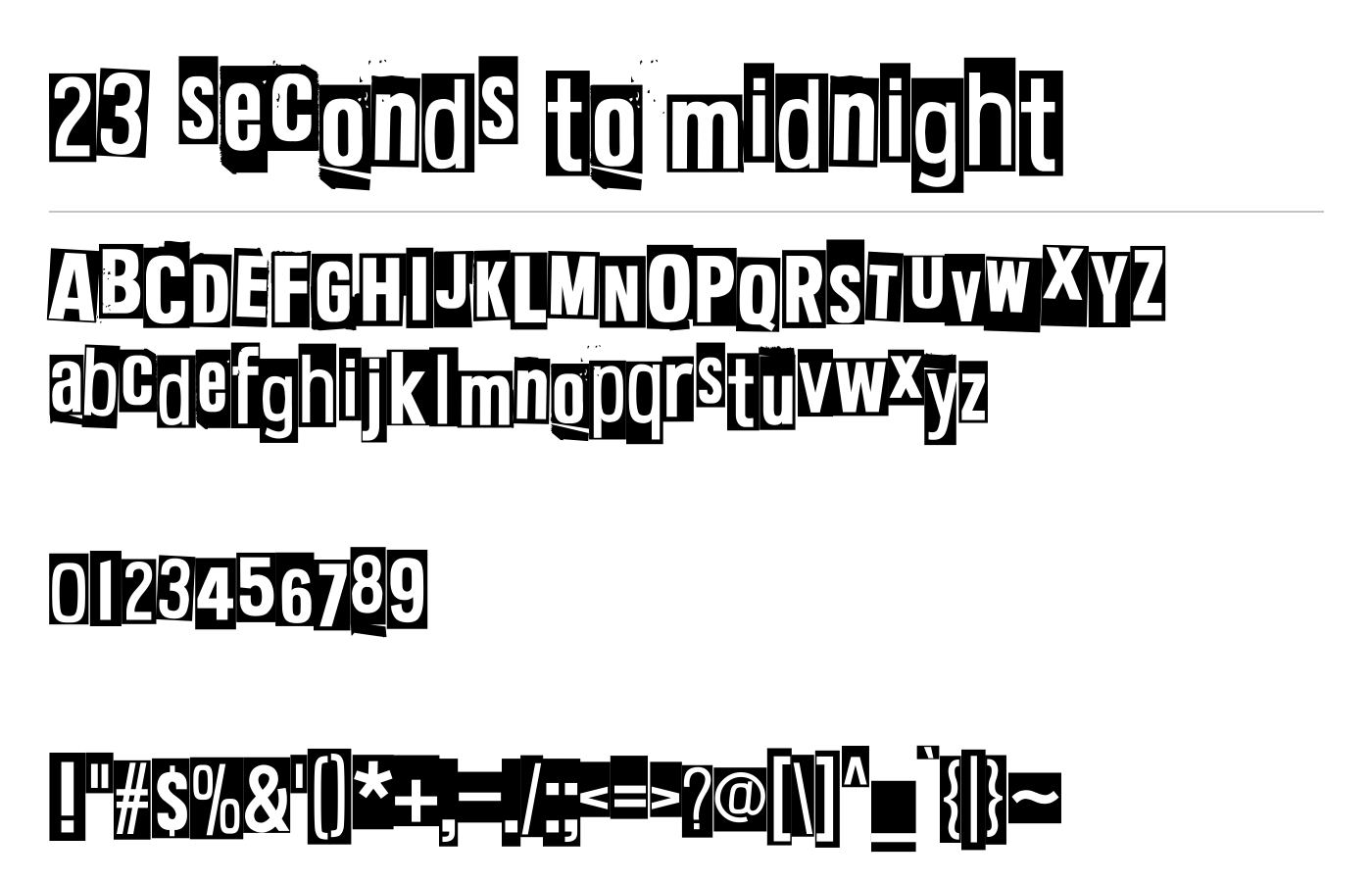
23 Seconds to Midnight is a bold, condensed sans serif font with a distressed, cut-out letter style that evokes a sense of urgency and tension. Its irregular, blocky letterforms combined with uneven edges give it a raw, rebellious personality, making it ideal for edgy, dramatic designs like posters, headlines, and branding that want to capture attention with a sense of urgency and raw energy. This font works best in expressive contexts where a bold, impactful statement is needed rather than in body text.
23 seconds to midnight Font
About 23 seconds to midnight Font
| Font family | 23 seconds to midnight Font |